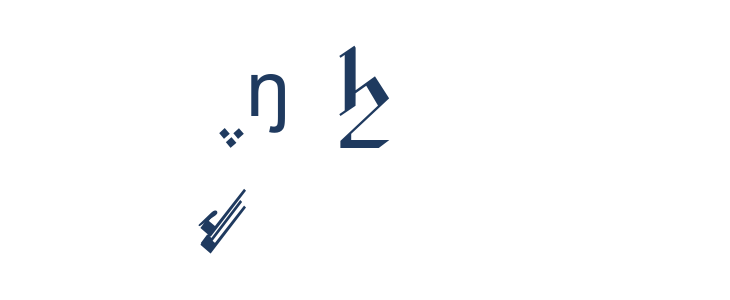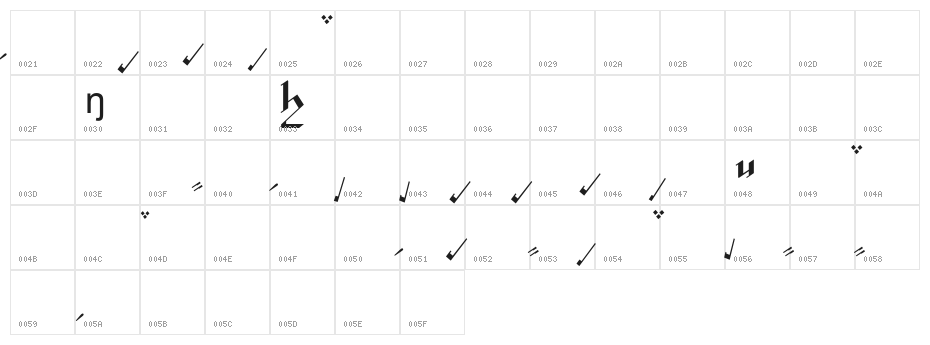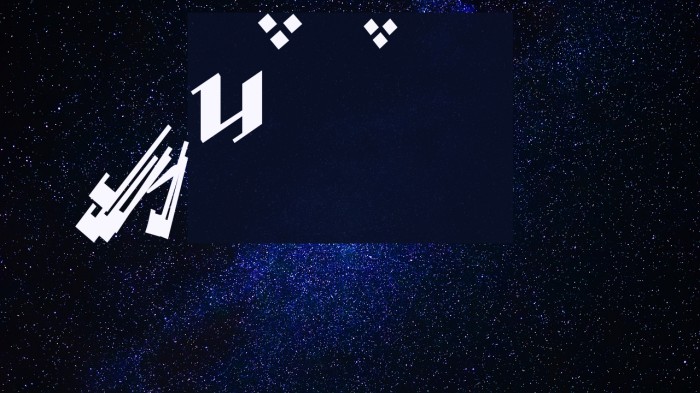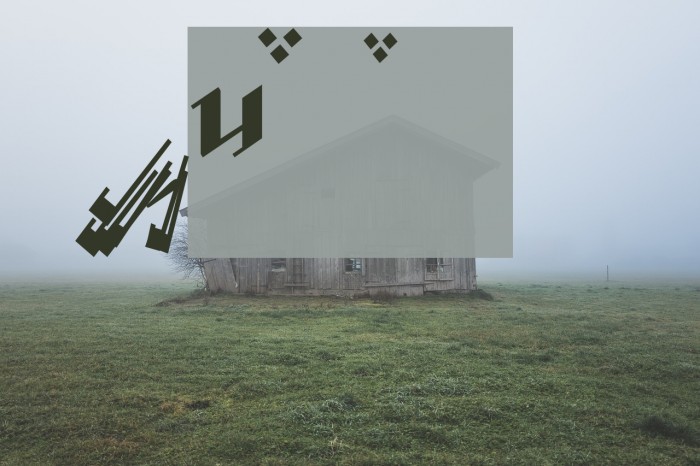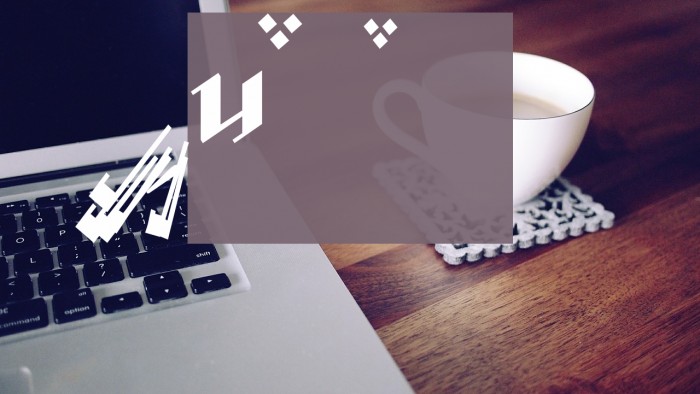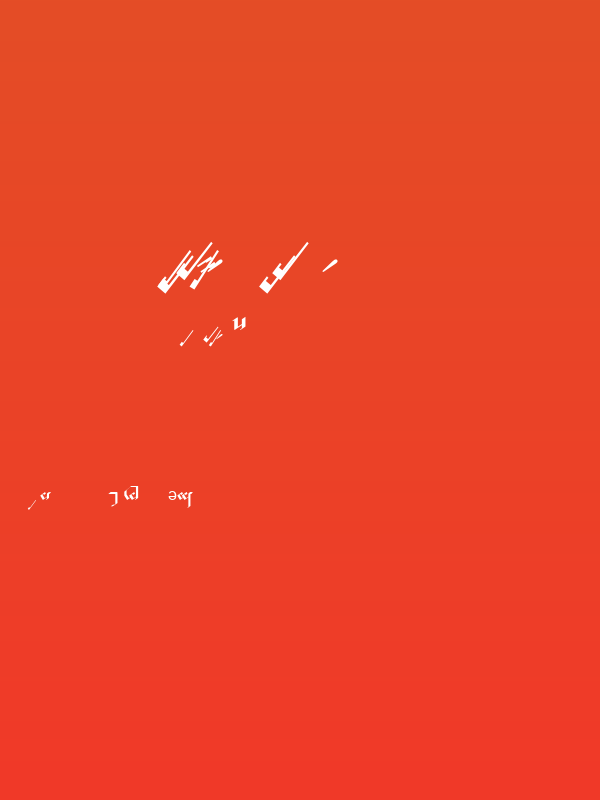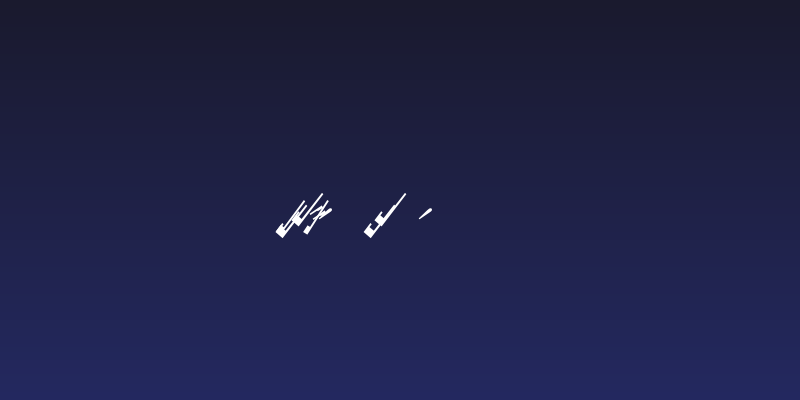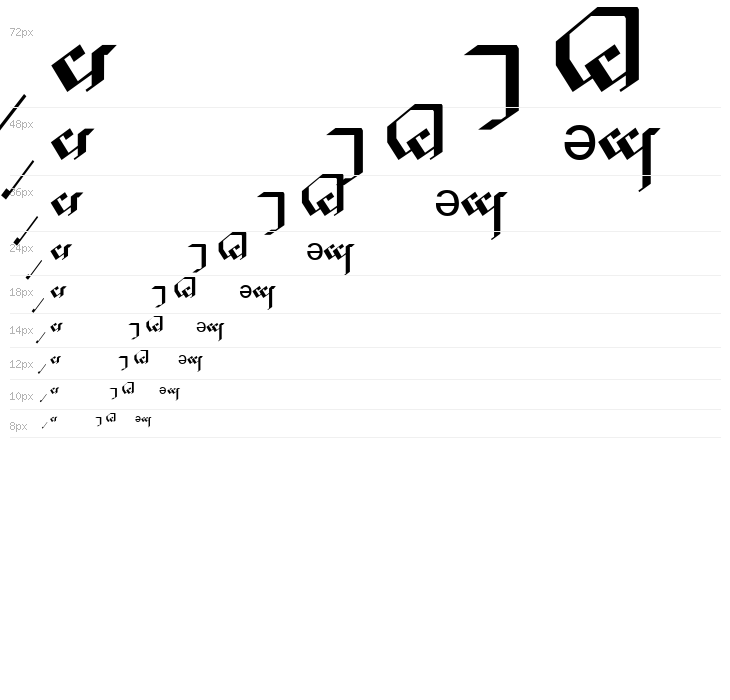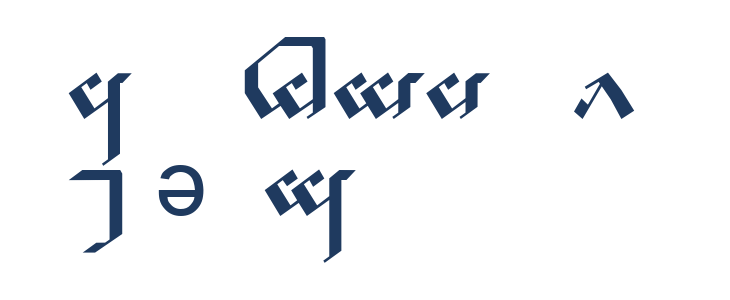
Tengwar Noldor A Font
Tengwar Noldor A Description
This font is a decorative script inspired by the Tengwar script, often associated with fantasy settings. It features intricate and flowing characters with unique flourishes and diacritical marks that give it an otherworldly appearance. The characters are highly stylized, with a mix of sharp angles and smooth curves, creating a sense of elegance and mystery. The font is not designed for standard alphabetic representation but rather for artistic and thematic use, capturing the essence of a fictional language.
| Use Case | Logos, Decorative text, Thematic designs |
| Proposed Projects | Ideal for fantasy-themed projects, such as book covers, game design, or themed event invitations. |